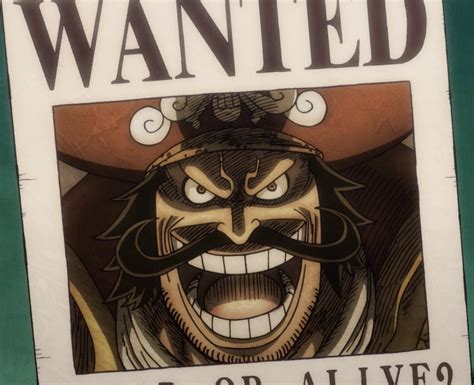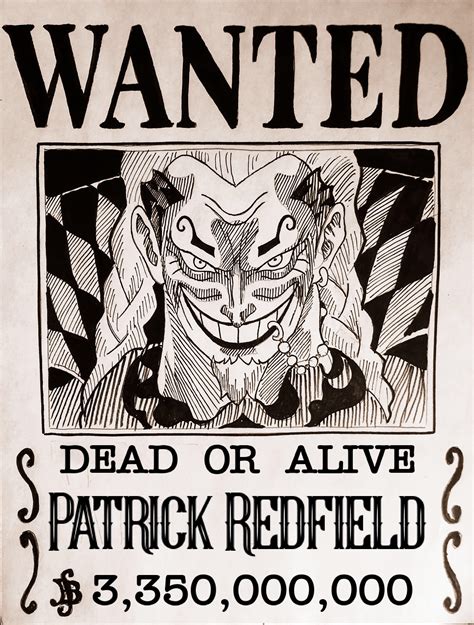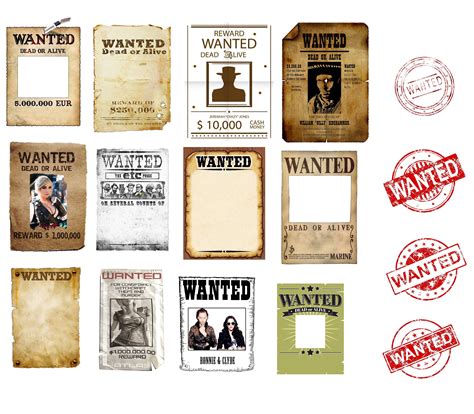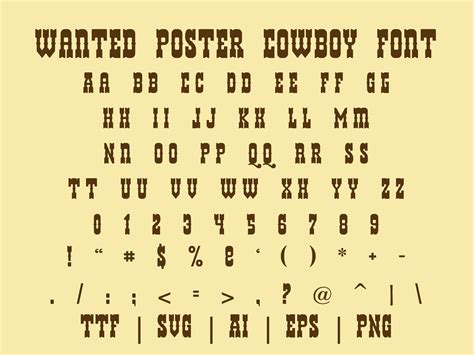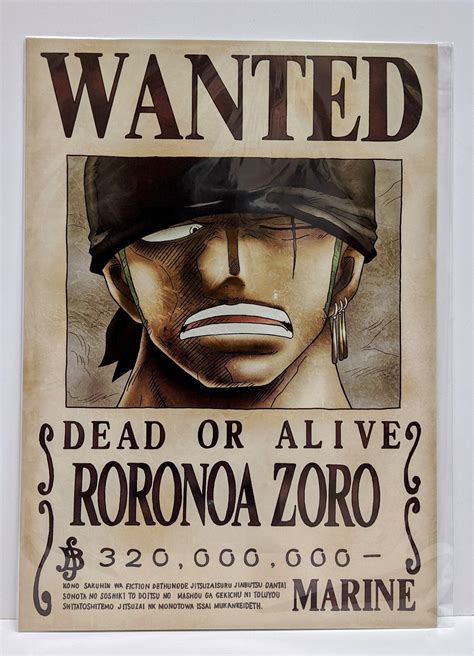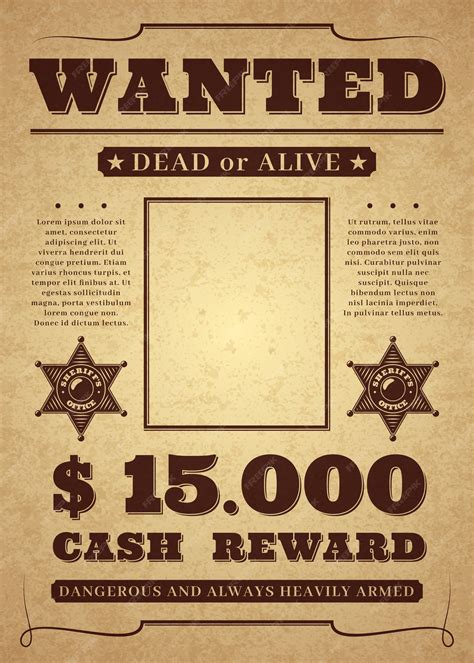
In the world of graphic design and typography, the choice of font can make or break a project. One font that has stood the test of time and continues to be a favorite among designers is the Wanted Poster Font. This font is inspired by the classic wanted posters from the Wild West, evoking a sense of adventure, mystery, and nostalgia. Whether you're designing a poster, creating a logo, or adding a vintage touch to your digital projects, the Wanted Poster Font is a versatile choice that can add a unique flair to your work.
What is the Wanted Poster Font?
The Wanted Poster Font is a typeface that mimics the hand-drawn, rustic style of old wanted posters. It features irregular, uneven lines and a slightly rough texture, giving it an authentic, weathered look. This font is perfect for projects that aim to capture the spirit of the Old West or any era that requires a vintage, handcrafted aesthetic.
History and Inspiration
The inspiration behind the Wanted Poster Font comes from the iconic wanted posters that were prevalent during the 19th century in the American West. These posters were used to advertise rewards for the capture of outlaws and were often hand-drawn with a distinctive, rugged style. The font captures this essence, making it a popular choice for designers looking to evoke a sense of history and adventure.
Characteristics of the Wanted Poster Font
The Wanted Poster Font is characterized by several key features that set it apart from other typefaces:
- Rustic and Hand-Drawn Style: The font mimics the look of hand-drawn letters, with uneven lines and a slightly irregular appearance.
- Weathered Texture: The font often includes a textured background or overlay that gives it a worn, aged look, as if it has been through years of wear and tear.
- Bold and Legible: Despite its rustic appearance, the Wanted Poster Font is designed to be highly legible, making it suitable for a variety of applications.
- Versatile Use: This font can be used in a wide range of projects, from posters and logos to digital graphics and print media.
Applications of the Wanted Poster Font
The Wanted Poster Font is incredibly versatile and can be used in a variety of design projects. Here are some popular applications:
- Posters and Flyers: The font is perfect for creating eye-catching posters and flyers, especially for events with a vintage or Western theme.
- Logos and Branding: Businesses looking to convey a sense of history, adventure, or ruggedness can use the Wanted Poster Font in their logos and branding materials.
- Digital Graphics: The font can be used in digital projects such as websites, social media graphics, and online advertisements to add a unique, vintage touch.
- Print Media: From book covers to magazine layouts, the Wanted Poster Font can enhance the visual appeal of print media with its distinctive style.
Comparing Wanted Poster Font with Other Vintage Fonts
While the Wanted Poster Font is a popular choice for vintage and rustic designs, there are other fonts that offer similar aesthetics. Here’s a comparison of the Wanted Poster Font with some other vintage fonts:
| Font Name | Style | Characteristics | Best For |
|---|---|---|---|
| Wanted Poster Font | Rustic, Hand-Drawn | Irregular lines, weathered texture, highly legible | Posters, logos, digital graphics |
| Luckiest Guy | Vintage, Playful | Bold, rounded letters, playful style | Children's books, casual designs |
| Old West | Rustic, Western | Thick, uneven lines, rugged appearance | Western-themed projects, adventure designs |
| Vintage Typewriter | Retro, Typewriter | Monospaced, typewriter-style letters | Retro designs, vintage advertisements |